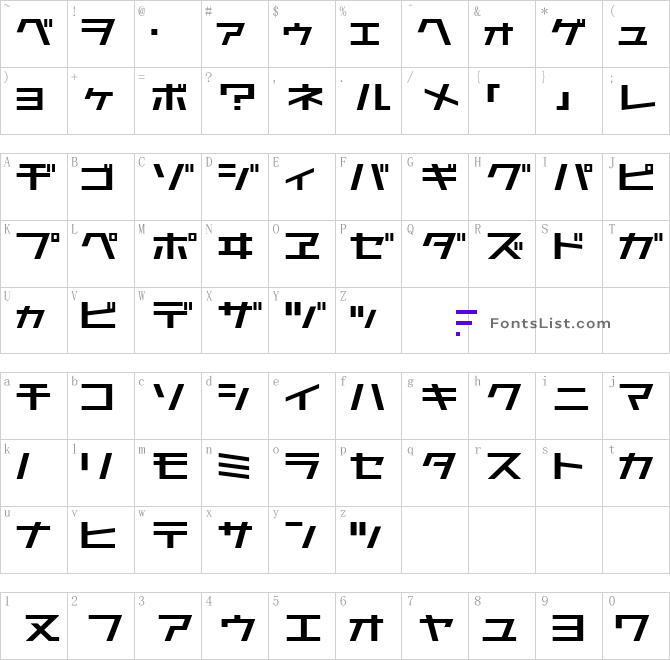
AstraKfsb07MediumO.ttf is a very beautiful artistic font, AstraKfsb07MediumO.ttf is widely used in the design and printing of various books and pictures,AstraKfsb07MediumO.ttf has a strong visual impact,AstraKfsb07MediumO.ttf is a commonly used font in newspapers, magazines and books, and is used in posters, e-commerce Poster design, store design, logo design, font design and other fields.AstraKfsb07MediumO.